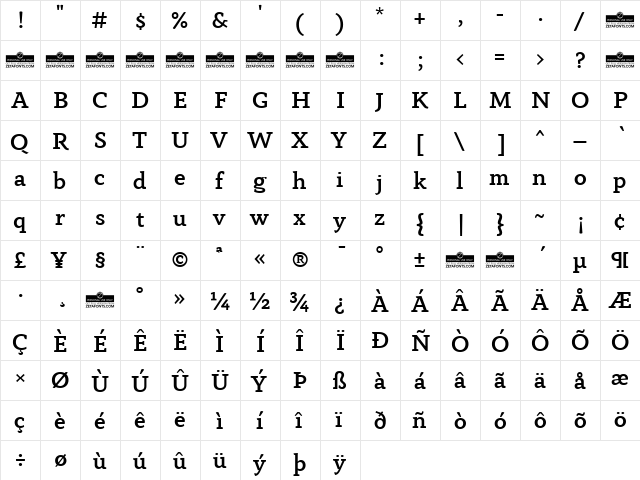
Anaphora Trial Medium
| Foundry | Studio Kmzero |
| Designer | Francesco Canovaro |
Design Context for Anaphora Trial Typeface
Anaphora Trial takes a measured approach to typography — its balanced proportions and neutral character make it a reliable workhorse for both digital and print work.